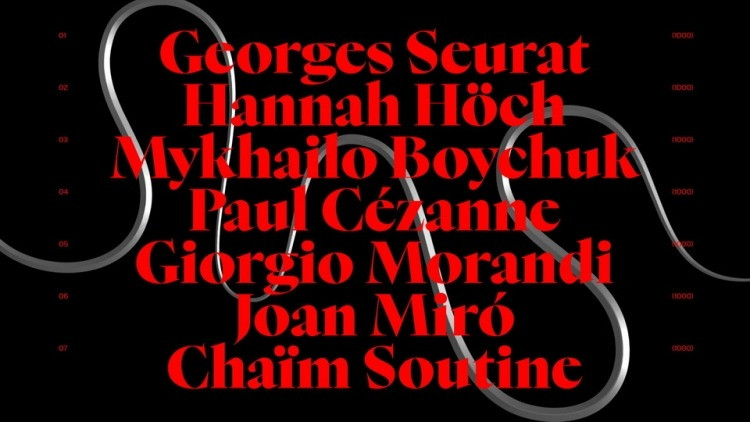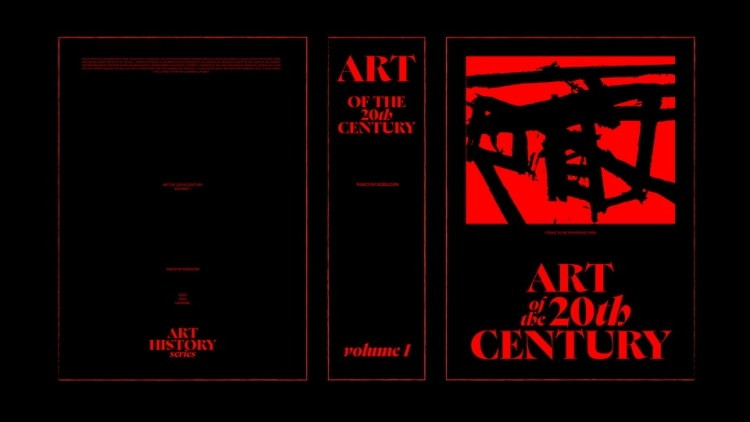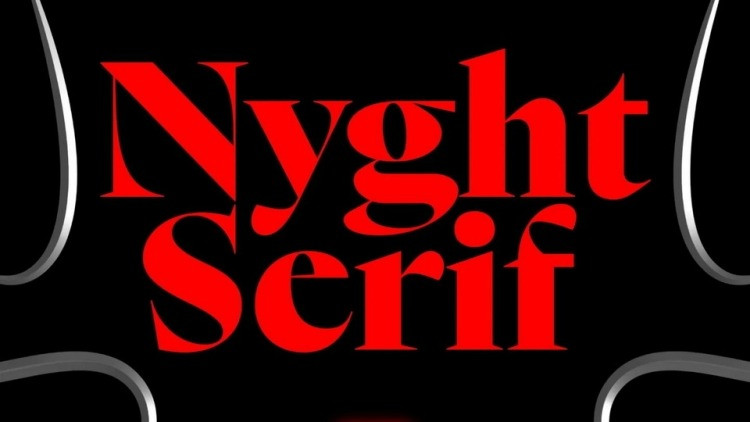
Nyght Serif Font is a contemporary serif font with a spicy character. Its contrasting forms combine smooth curves and sharp as a blade serifs and spurs. Work on it began during the study of the well-known typefaces designed by William Caslon. However, under the influence of calligraphy and modern serifs, Nyght Serif has been greatly transformed.
Nyght Serif Font